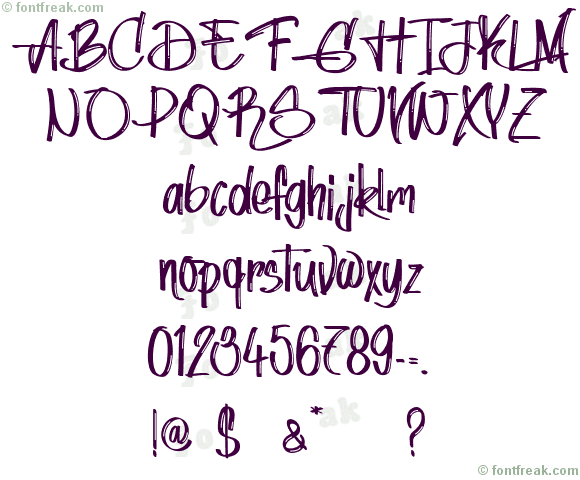
Red Lipstick - Personal Use
The "Red Lipstick - Personal Use" font by Suthi Srisopha is a captivating script typeface that embodies elegance and playfulness. This handwritten font showcases fluid strokes and a charmingly imperfect aesthetic, mimicking the natural flow of ink on paper. The varying stroke weights create a delightful contrast, giving the text a dynamic appearance that draws the eye. The letters are loosely spaced, enhancing its informal yet stylish vibe, making it perfect for personal projects.
This font is particularly well-suited for a variety of creative applications. It shines in crafting wedding invitations, where its romantic flair can set the tone for the celebration. Additionally, "Red Lipstick" is ideal for designing eye-catching movie posters, adding a touch of glamour that captures attention. Small business owners can utilize this font for restaurant menus, providing a unique and inviting look that reflects the personality of their establishment. Content creators will find it an excellent choice for social media graphics, where its charm can enhance engagement and visual appeal.
Targeting graphic designers, small business owners, and content creators, the "Red Lipstick - Personal Use" font free download offers an accessible way to elevate projects with its distinctive style. Its whimsical yet sophisticated character makes it versatile enough to fit various themes and occasions.
What sets this font apart is its ability to convey emotion through its handwritten style, making ordinary text feel personal and heartfelt. Whether you're crafting an invitation or designing a promotional poster, "Red Lipstick" adds a unique touch that resonates with audiences, ensuring your message stands out in a crowded visual landscape.